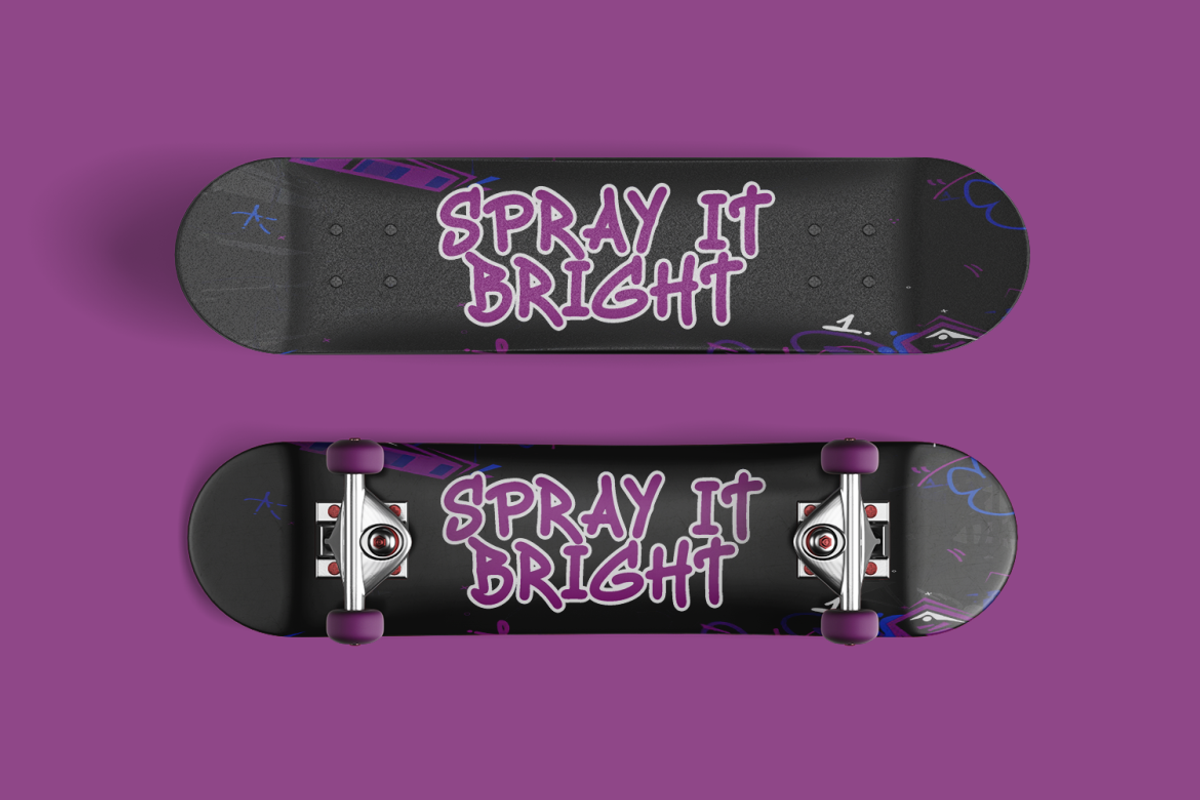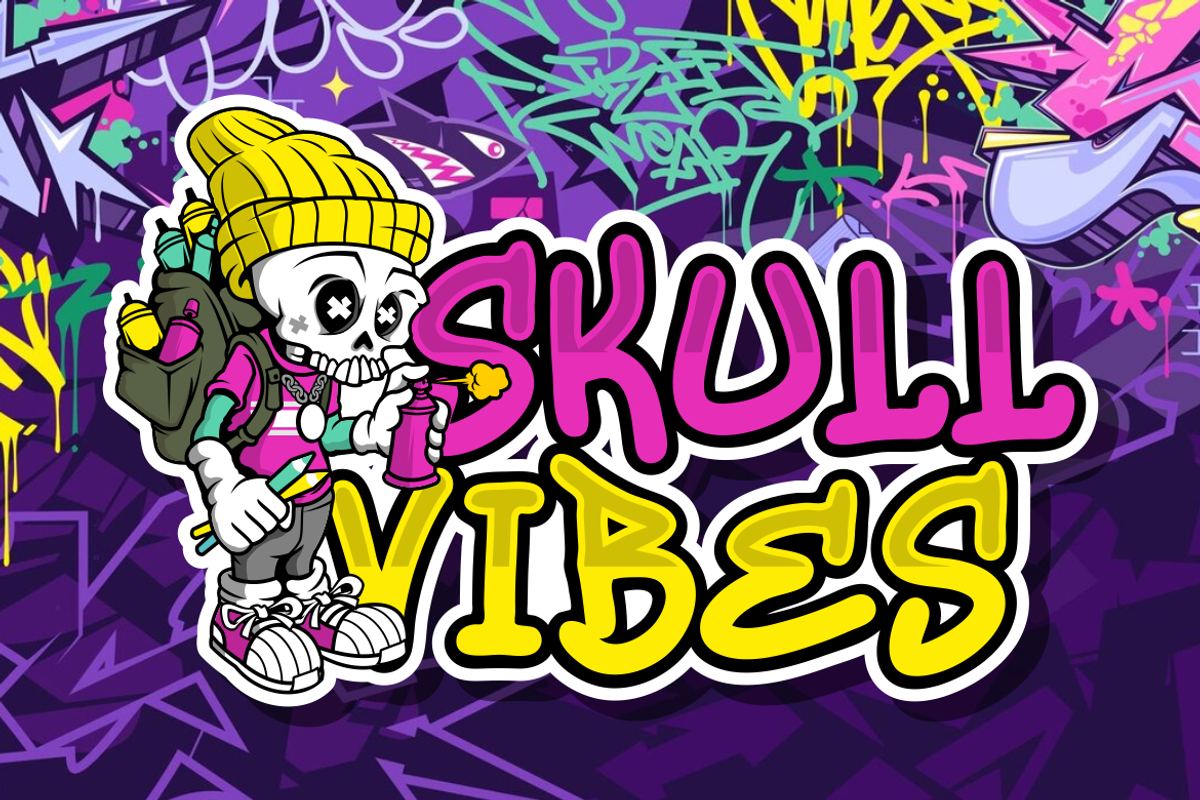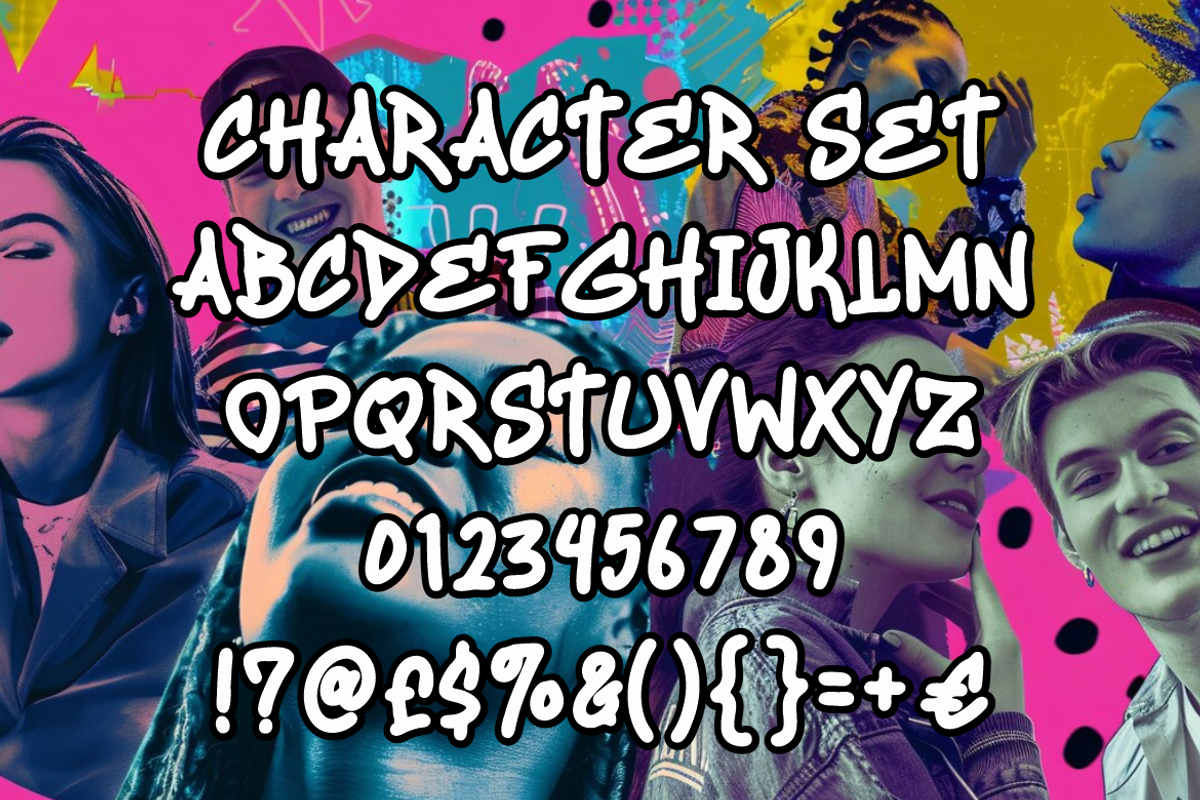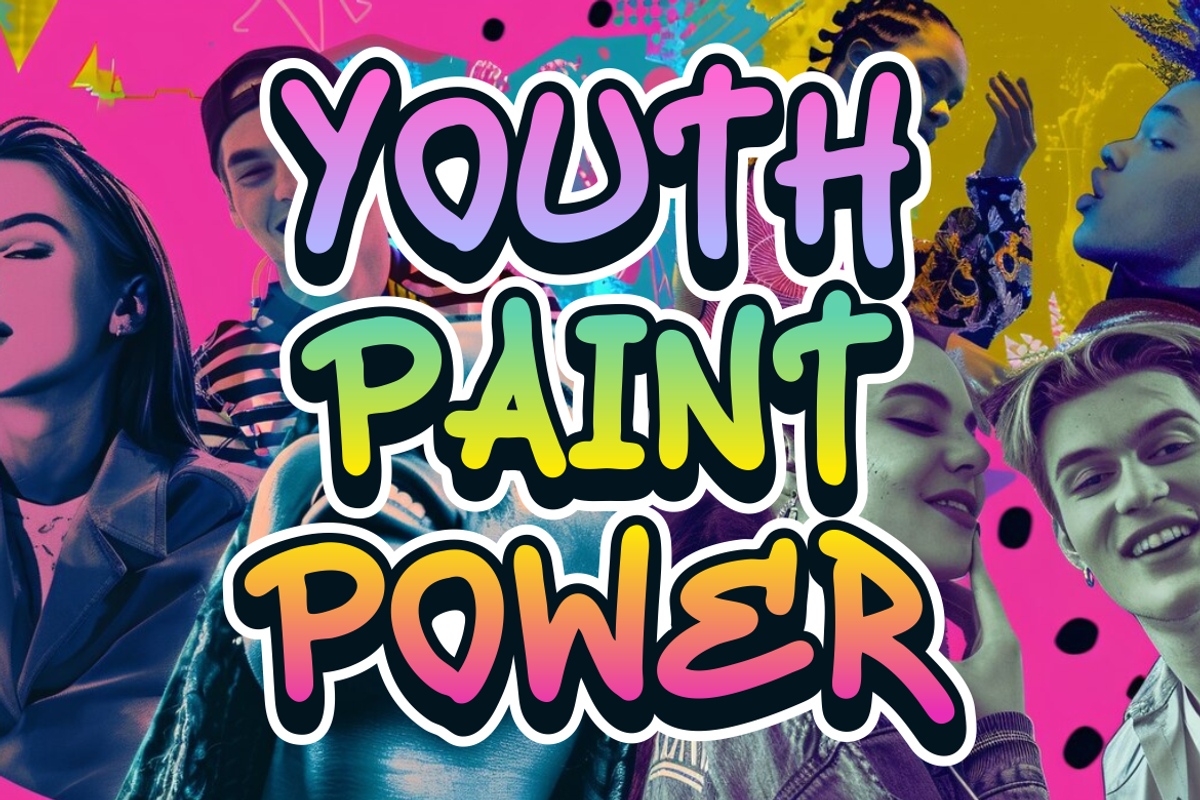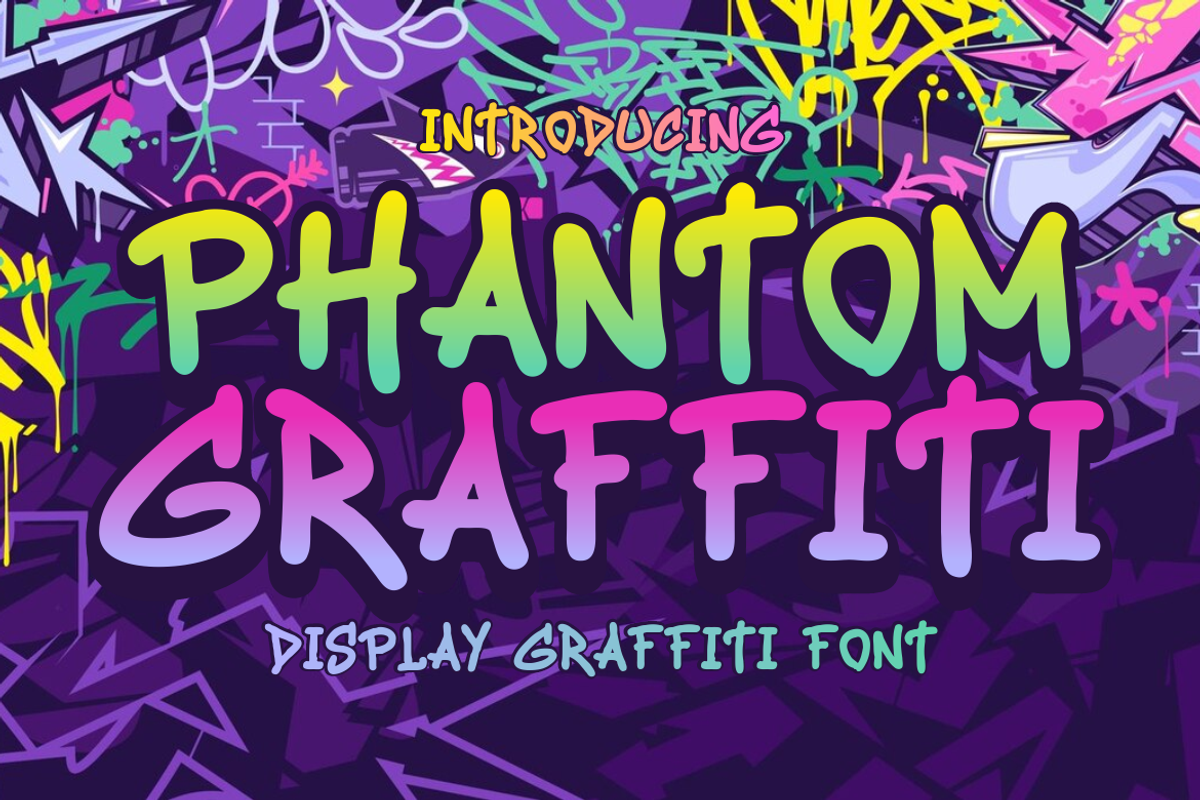
Phantom Graffiti - Graffiti Font
Phantom Graffiti is a bold and rebellious hand-brushed graffiti font that electrifies every visual with its urban soul. Designed with energetic brush strokes and thick monoline consistency, this display font captures the essence of street culture, freedom of expression, and youthful confidence. Its chunky letters are exaggerated with playful curves and graffiti flair, giving it a raw, authentic street style feel. The characters are purposefully irregular, resembling spray-painted tags on brick walls and urban skateparks, making it perfect for projects that require a strong personality and expressive attitude. Whether you use it with neon gradients, vibrant outlines, or black ink textures, Phantom Graffiti delivers impact and energy.
Perfect for logos, youth-oriented branding, hip-hop event posters, streetwear merchandise, skate culture graphics, music cover art, and packaging for edgy products, Phantom Graffiti brings vibrant motion to every surface it touches. The font set includes uppercase, numerals, and essential punctuation marks, making it versatile for both print and digital designs. Use Phantom Graffiti to tell stories of rebellion, individuality, and bold creativity—designed for creatives who dare to be loud, bright, and unapologetically bold.